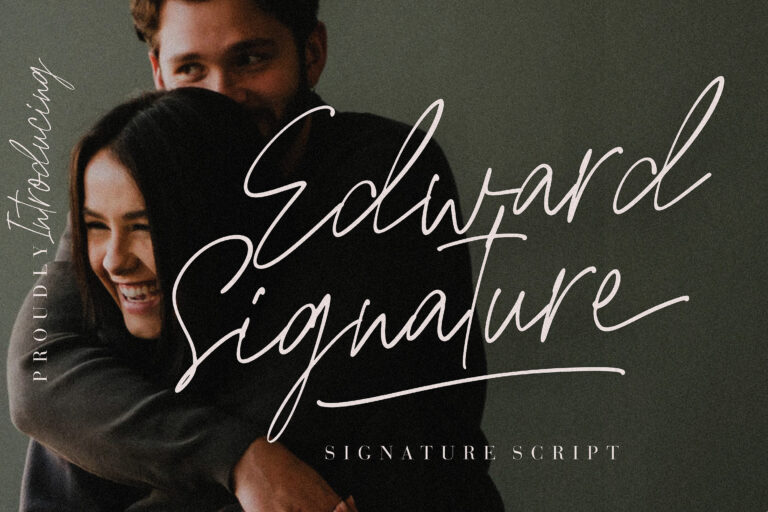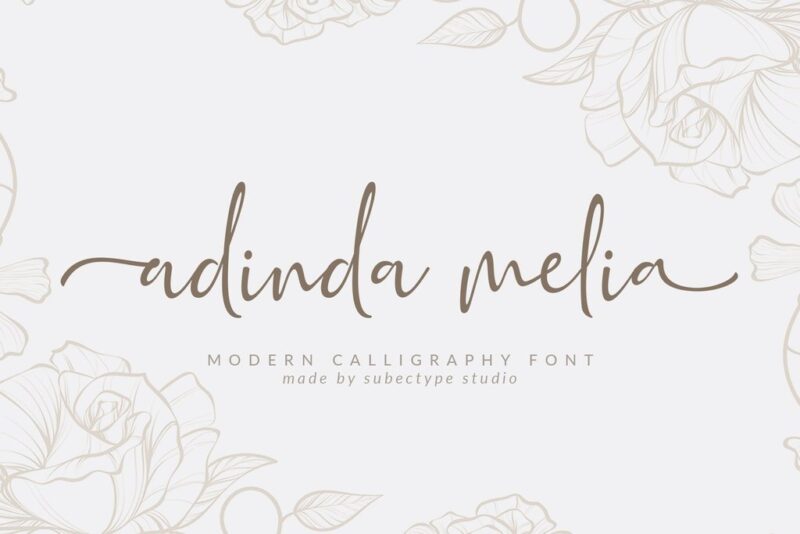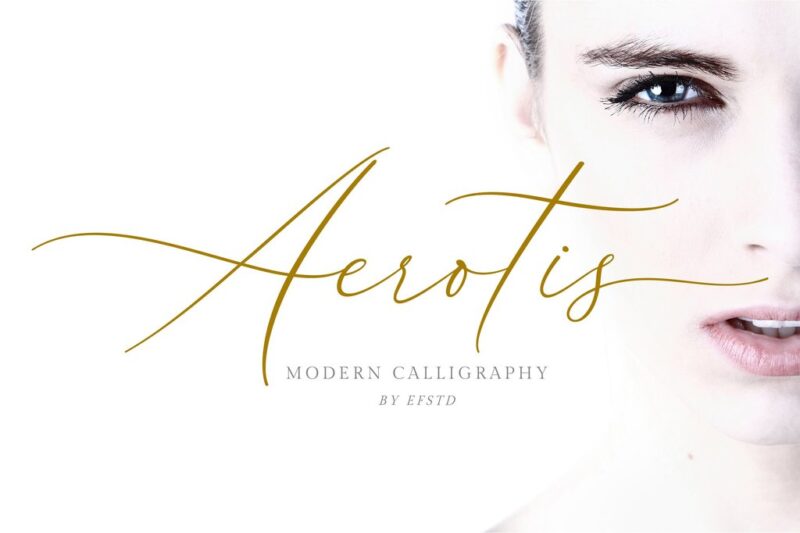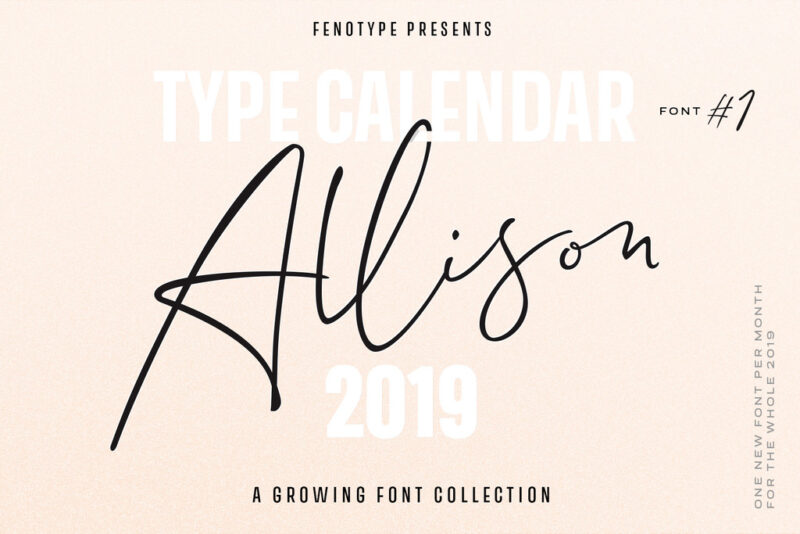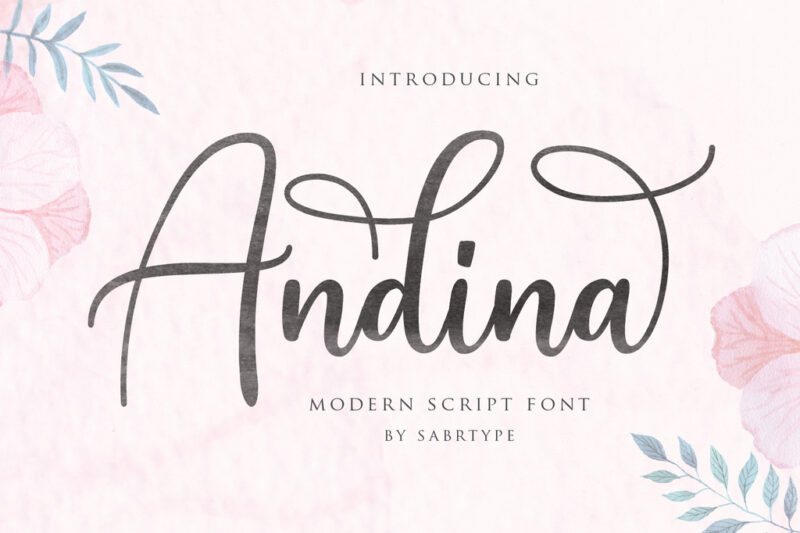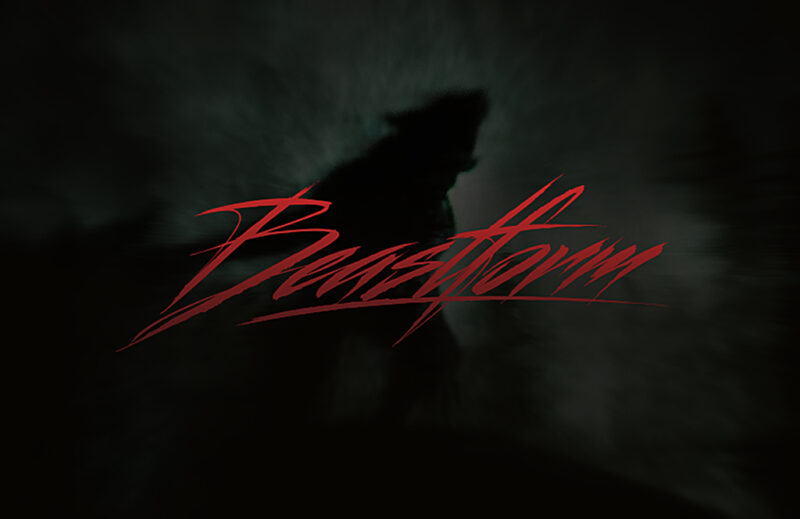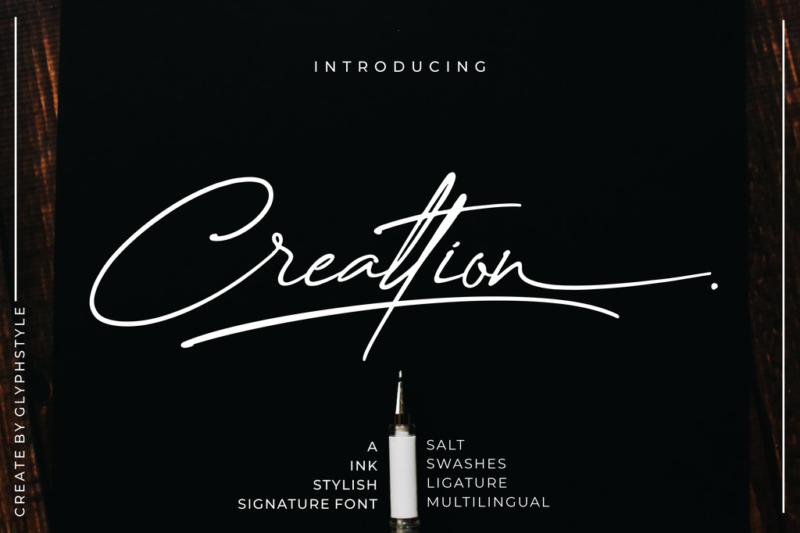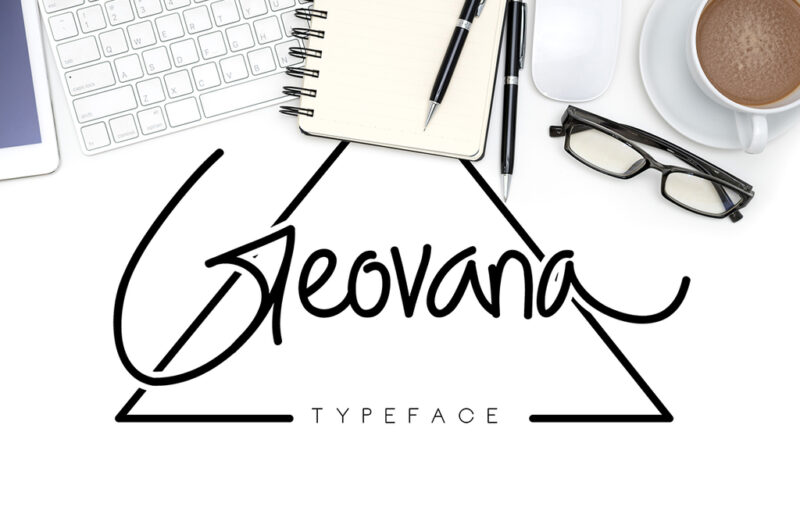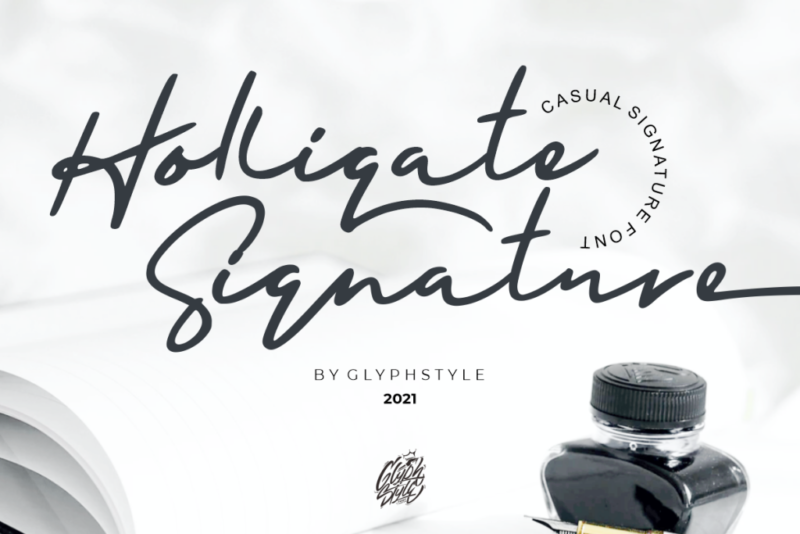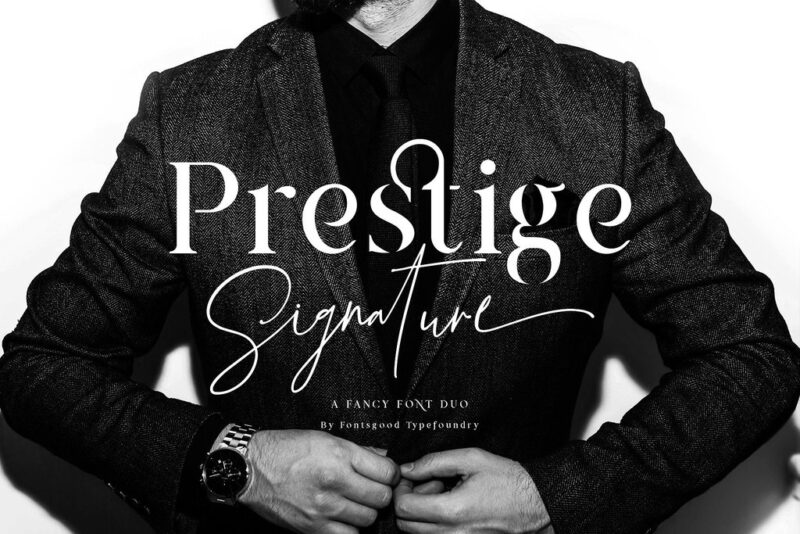
30 Stunning Signature Fonts to Create a Head-Turner Design
Fonts selection is part of the design element that you should never take for granted. It is not only about choosing fonts to convey information. The right fonts will also be a part of the factors that can make or break your design. Therefore, you should choose it wisely and carefully.
While decorative fonts like script or signature fonts can improve the style and look of your design, too many decorative fonts or awkwardly placing it will make your design look less interesting and may even look clashing instead. So, before choosing which fonts to use, make sure you know how to use and implement them into your design first.
To help you getting inspiration of what signature fonts to use, here are 30 stunning signature fonts to create a head-turned design.
1. Gistesy Signature Collection
Creatype Studio created this signature font collection. It is a script font that comes with natural movement that resembles handwriting. The font comes in standard glyphs and stunning ligature, making the letters look elegant and classy. The font is perfect for social media posts, wedding invitation designs, logos, blog names, and other designs you think to need handwriting taste.
2. Creattion Demo Font
Creattion Demo Font is created by GlyphStyle and comes with a signature style font. The script font comes with a stylish look thanks to its swashes and ligatures. It is an elegant and manly font with its natural handwriting looks, perfect for decorative purposes.
This font will look perfect for any project that needs signature and ink style. You can use this for weddings, stylish watermarks, product logos, advertisements, product packaging, and so on.
3. Themysion Signature Handwriting
Themysian Signature Handwriting is another font created by Creatype Studio. This signature handwriting script offers an elegant and classy look that will be perfect for classy projects. Just like other fonts from Creatype Studio, this font also works on PC and Mac. With only simple installations, this font is ready to use for your projects.
4. Southam Demo Font
If you need ink style font with a natural flow, look no further because Sautham Demo Font is just perfect for you. The ligatures and swishes make this font looks stylish and classy. The handwriting style also makes this font great for decorative purposes such as wedding invitations, social media headlines, thank you cards, and many more.
5. Besties Matthew Signature
If you need a more feminine touch to your script font, this Besties Matthew Signature is the right option. The signature style makes this font looks classy, elegant, and with a touch of luxury. With more than 100 ligatures, this font will look close to natural handwriting. Use this font for your branding projects, logo, product packaging, and a lot more.
6. Monsieur La Doulaise Font
Monsiery La Doulaise Font is a beautiful handwriting font with the early 1930s style. This font is created from a collection of different signatures as samples. With those samples, complete alphabets were built from them.
The font has ligatures and swashes that make it looks elegant and classy. With its classic layout, this Monsieur La Doulaise Font is perfect for vintage poster design, wedding invitations, thank you cards, product packaging, and a lot more.
7. Rattiar
If you prefer the monoline script style, you may want to look at this Rattiar font. It is a web font that comes with a lot of glyphs for you to use. It also comes with ligature and alternate that is easy to use. With simple installations, you can use this font on various software such as Illustrator, Photoshop, InDesign, and even Microsoft Word.
8. Holligate Signature Demo Font
For a more casual style, take a look at this Holligate Signature Demo Font. The handwriting look comes with a bold style and stylish curves and swashes. Use this font as your brand logo to create a professional and stylish vibe. It is great for brands in the creative field.
9. Montsera
Montsera is another signature monoline font that is worth checking out. It creates a classy and elegant look to your design. It also comes in three file types which include OTF, TTF, and WOFF. Therefore you can use this font easily without hassle. With many glyphs complete with ligature, alternate, and swashes, this font will be perfect for any design purpose.